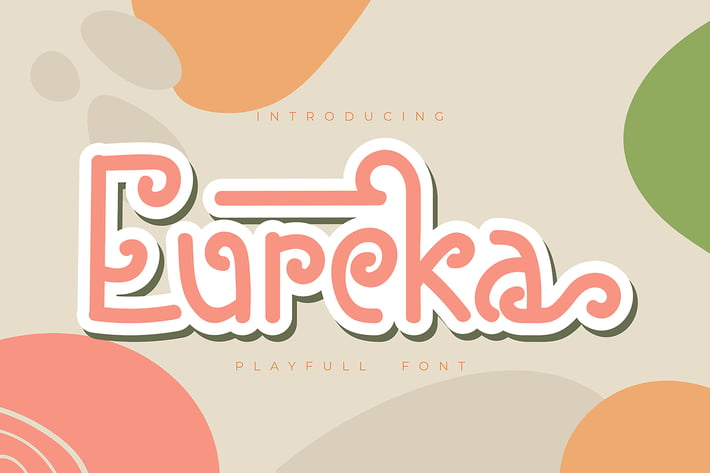
Eureka | Playfull Font
Eureka | Playfull Font with a calligraphy style, So beautiful on invitation like greeting cards, branding materials, business cards, quotes, posters, and more!